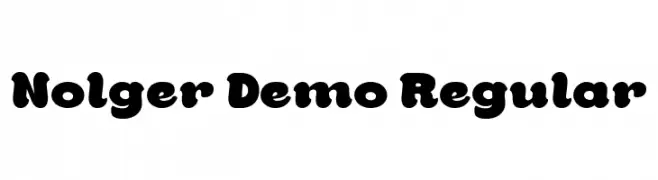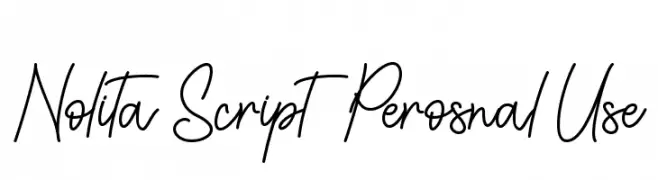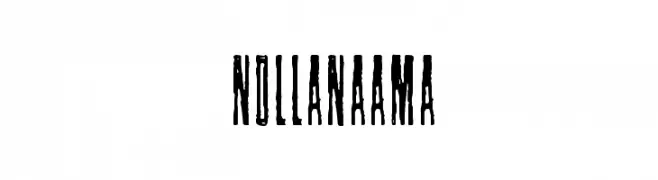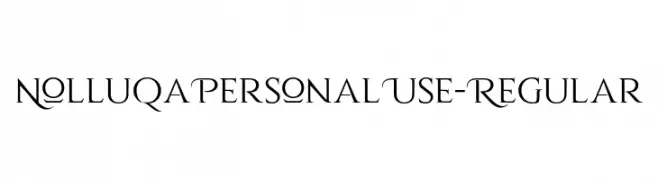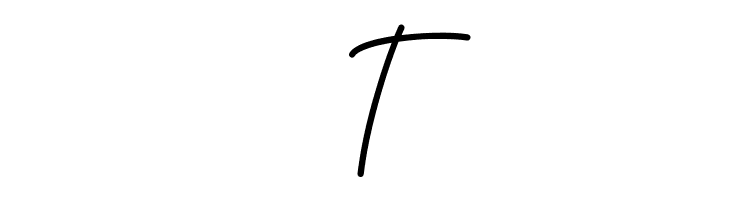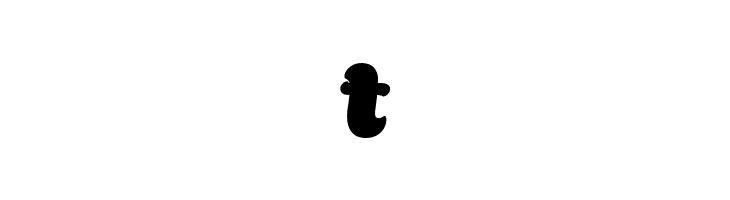
A bold, playful font with rounded, bubbly characters and a friendly aesthetic.
A modern, geometric sans-serif font with uniform strokes and excellent readability.
A lively and elegant script font with fluid, connected letterforms and decorative flourishes.
A bold, high-contrast font with a modern and condensed style.
A bold, high-contrast font with a modern and elegant design.
A bold, distressed font with a vintage, rugged style.
A rugged, distressed font with tall, narrow characters and a vintage, textured appearance.
A bold, hand-drawn font with an expressive and dynamic style.
An elegant serif font with flowing strokes and artistic flair.
A bold, 3D font with strong outlines and a blocky, geometric style.